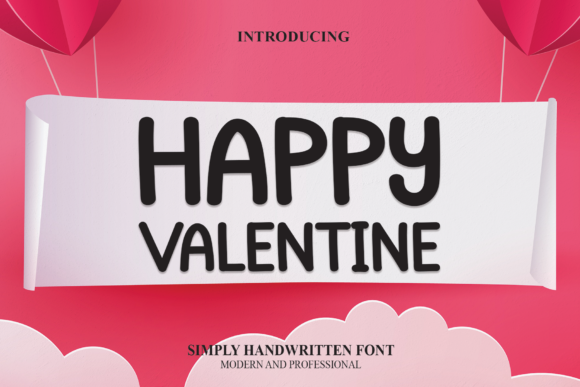
About Happy Valentine Font
Happy Valentine is a clean, simple and casual handwritten font. Whether you are using it for cartoon-related designs, children games, quotes, titles, brand names, book covers, posters, or just any creation that requires a touch of joy, this font is a great choice.